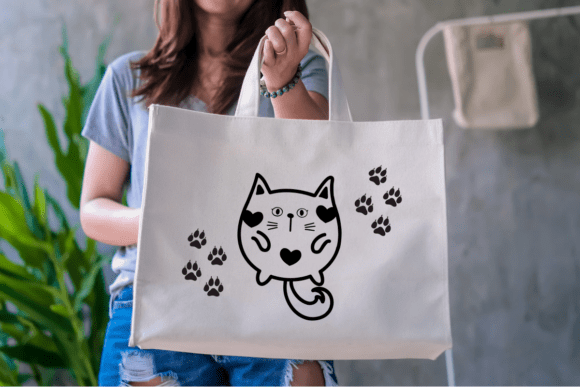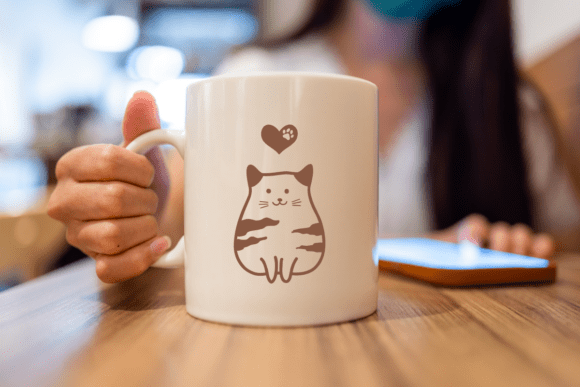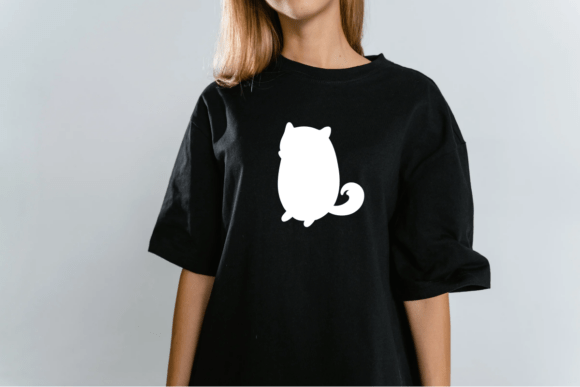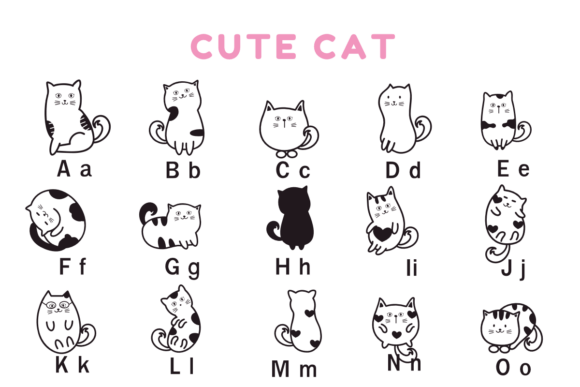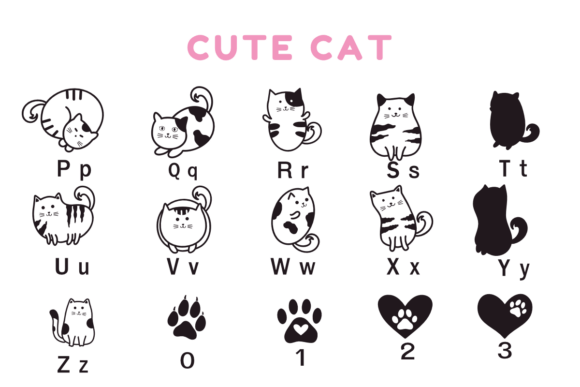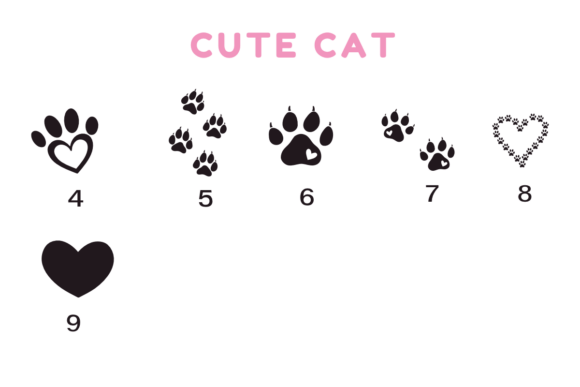
Cute Cat Font: The Purrfect Addition to Your Creative Projects
Are you a designer, crafter, or DIY enthusiast looking for a unique and playful font to add a touch of whimsy to your projects? Look no further than the Cute Cat Font, a delightful dingbat font that features a sketch-style theme that’s sure to capture the hearts of cat lovers and crafty enthusiasts alike.
What is Cute Cat Font?
Cute Cat Font is a dingbat font that showcases a charming and playful design, perfect for adding a personal touch to a variety of creative projects. The font features adorable cat illustrations, each carefully crafted with a sketch-style approach that gives it a hand-drawn feel. With its endearing designs, Cute Cat Font is ideal for projects that require a lighthearted and humorous tone.
Uses for Cute Cat Font
The versatility of Cute Cat Font makes it an excellent addition to a wide range of creative projects, including:
- Wedding Invitations: Add a touch of playfulness to your wedding invitations with Cute Cat Font. You can use it to create custom illustrations, such as a cat in a wedding dress or a cat holding a “Love” sign.
- DIY and Crafts: Cute Cat Font is perfect for DIY enthusiasts who love crafting. You can use it to create custom labels, decorations, and other embellishments for your craft projects.
- Decorations: Use Cute Cat Font to create custom wall art, banners, and other decorations for your home or office.
- Logos: Cute Cat Font can be used to create custom logos for pet-related businesses, such as pet stores, veterinary clinics, or animal shelters.
- Stationery: Add a touch of whimsy to your stationery with Cute Cat Font. You can use it to create custom greeting cards, thank-you cards, and letterheads.
Benefits of Using Cute Cat Font
Using Cute Cat Font in your creative projects offers several benefits, including:
- Unique and Playful Design: Cute Cat Font features a one-of-a-kind design that’s sure to stand out from more traditional fonts.
- Versatile: Cute Cat Font can be used in a variety of creative projects, from digital designs to handmade crafts.
- Adorable Illustrations: The font features adorable cat illustrations that are sure to delight cat lovers and add a touch of personality to your projects.
Cute Cat Font is a delightful dingbat font that’s perfect for designers, crafters, and DIY enthusiasts who want to add a touch of whimsy to their creative projects. With its adorable cat illustrations and versatile design, Cute Cat Font is sure to become a favorite font in your collection. So why not give it a try and see how it can enhance your next project?